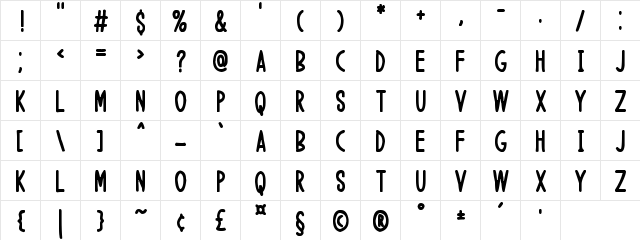
Father Regular Font Preview
Father Regular
Father Regular Font Details
Design Context for Father Typeface
Father takes a measured approach to typography — its balanced proportions and neutral character make it a reliable workhorse for both digital and print work.